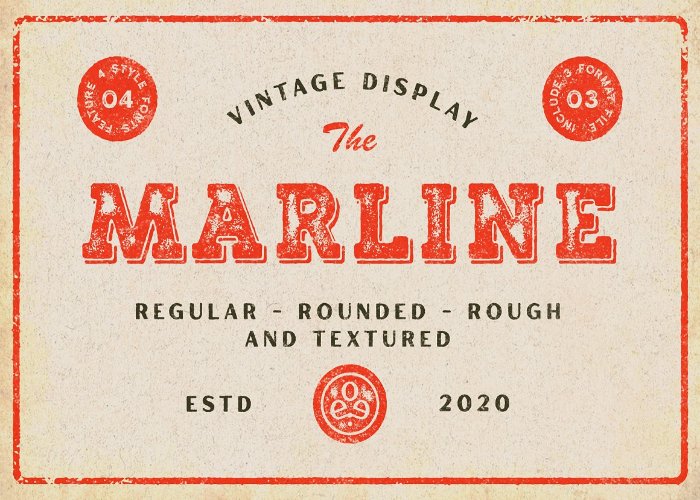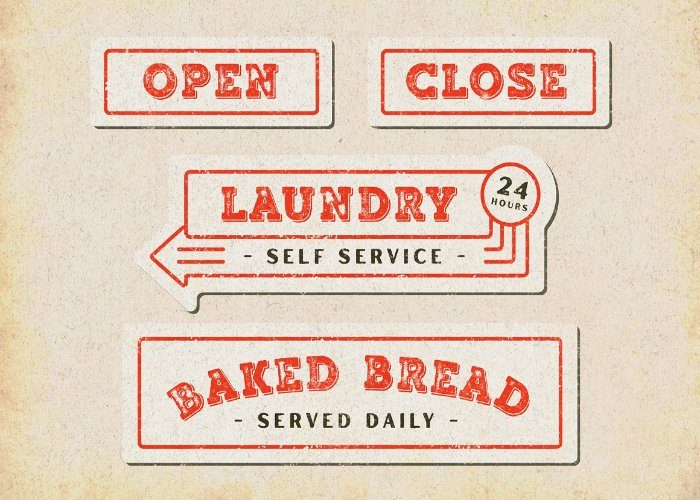
Marline – Vintage Font – Freebie
DealFuel brings you the “Marlineslab serif display font with the vintage theme. This vintage font comes with four style typefaces and includes uppercase and lowercase with different unique stamp textures.
This Marline font matches with many designs such as the logotype, poster, label, badge, packaging, branding, and more custom design.
Preview Of Free Marline – Vintage Font:
Marline Font By Edignwn Type
preview of typefaces included in Marline
mockup of Marline Font
Preview of Marline free font used in logo design